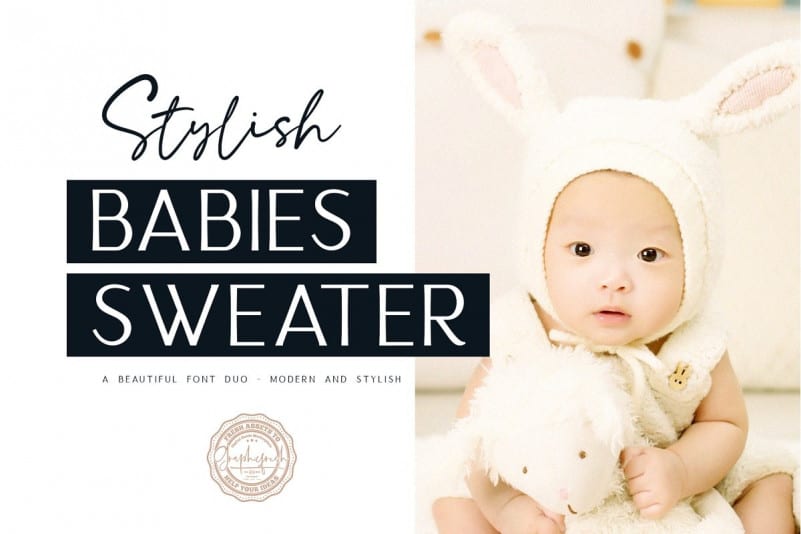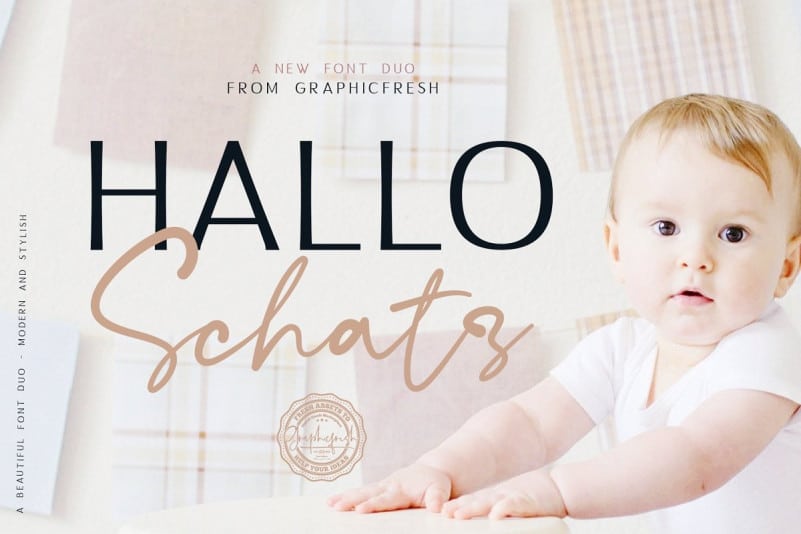
Hallo Schatz Font Duo
Introducing Jolly Night Script & Serif. It’s lovely handwritten script and sans with beautiful ligature and alternate font. It comes with an elegant and striking style which is perfect to make any design stand out! Hallo Schatz Handwritten Font is a very beautiful and interesting script, and comes with a perfect line for use for various purposes. Like titles, signatures, logos, correspondence, wedding invitations, letterheads, nameplate, labels, bulletins, posters, badges, Branding, Greeting Cards, etc.